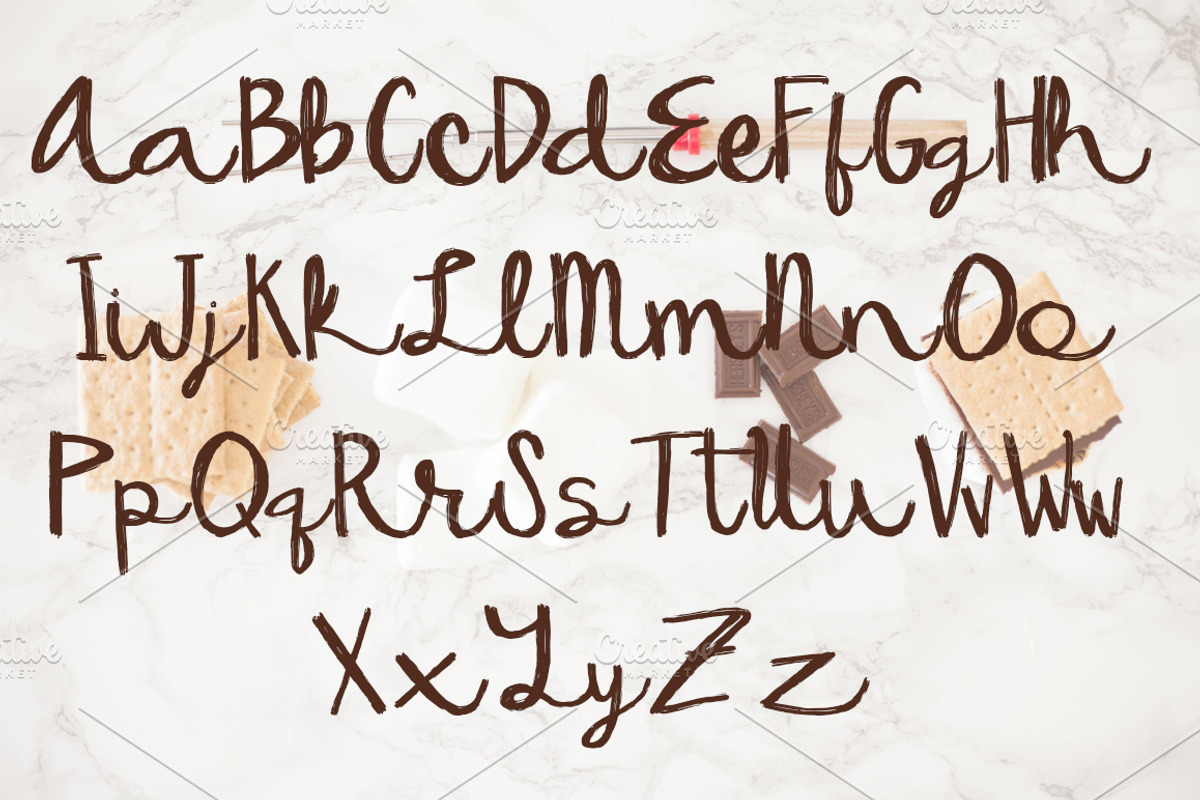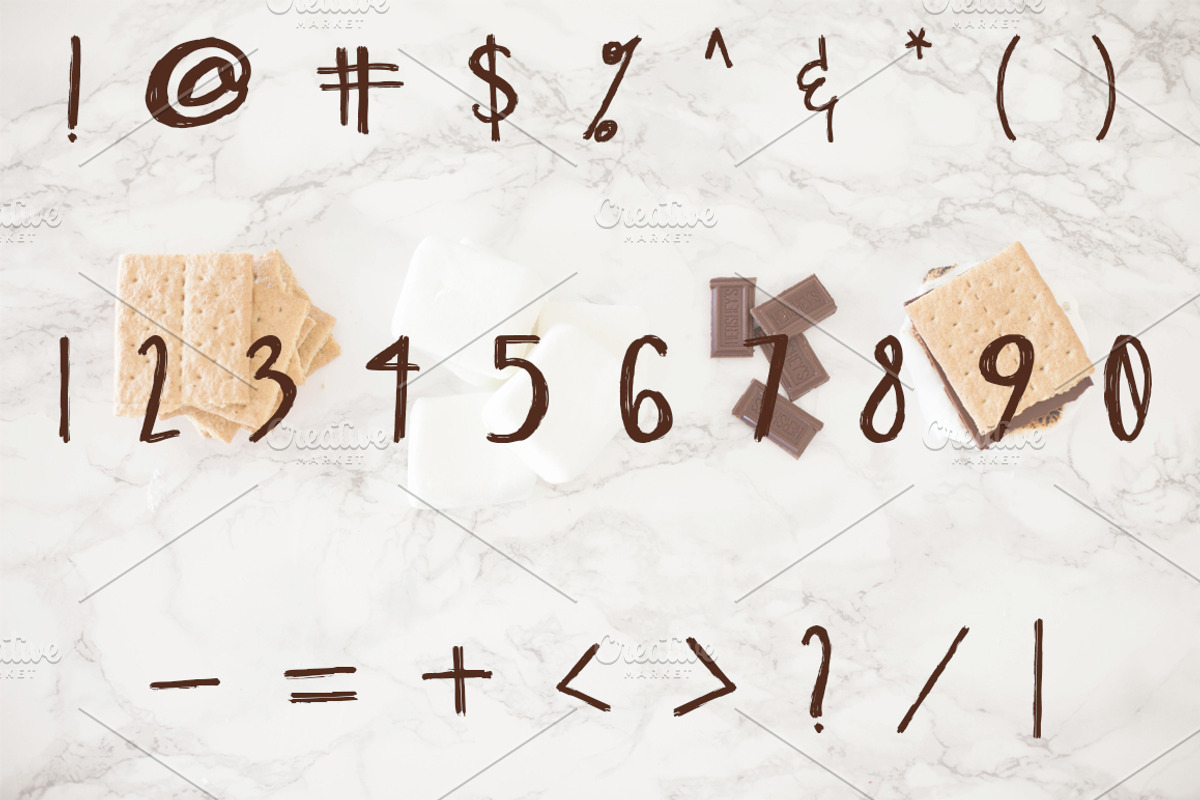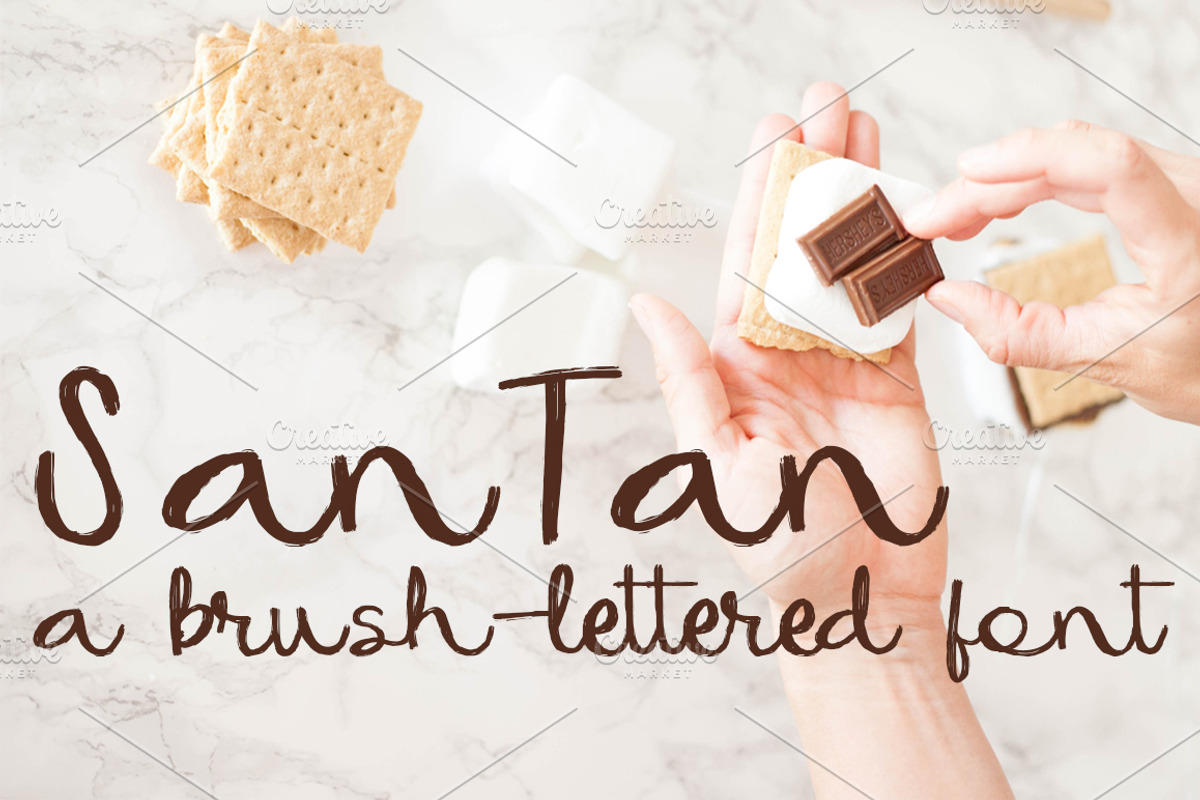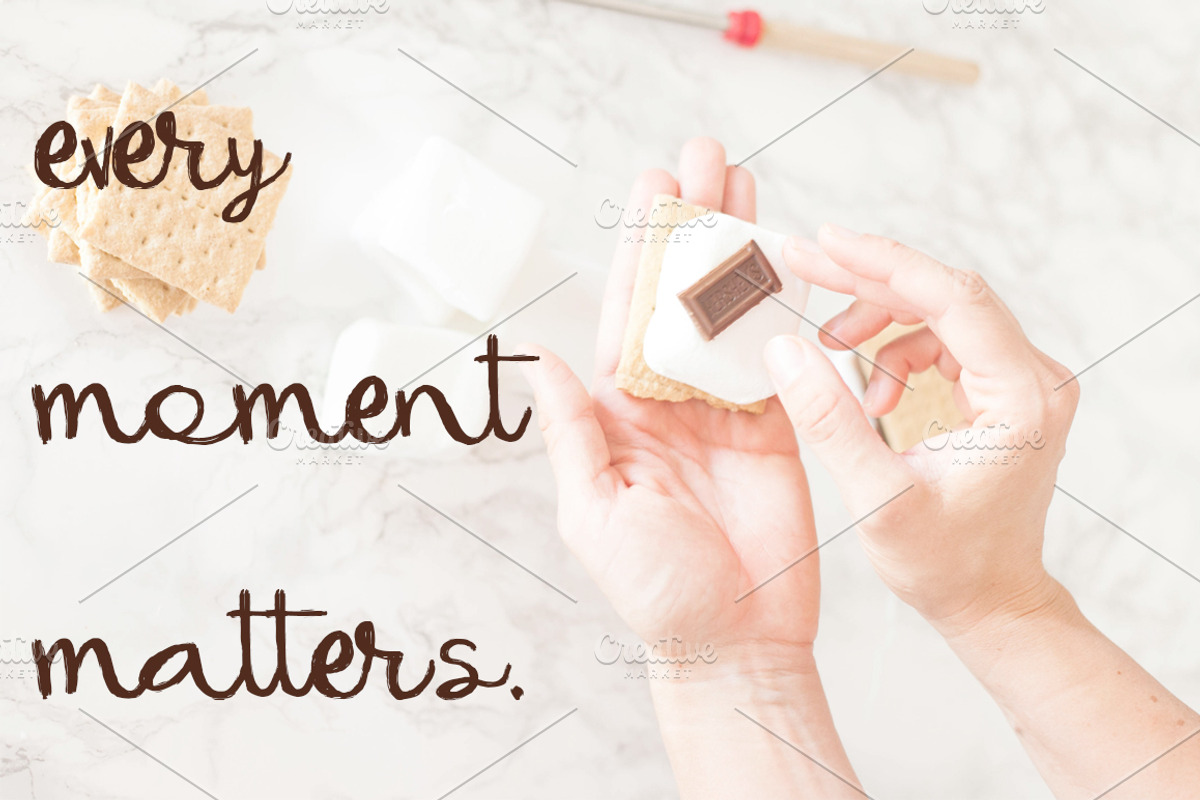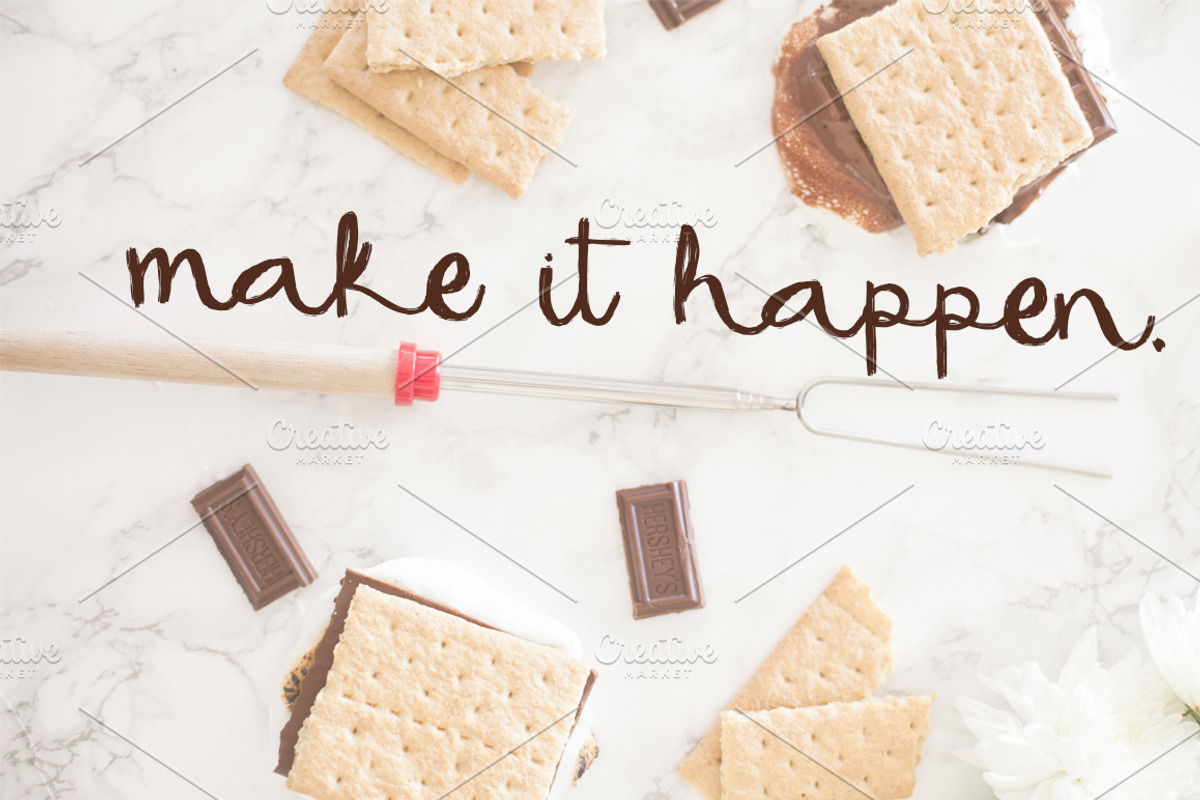
SANTAN Brush Lettered Font
SanTan is a funky brushed, hand lettered font. This quirky font is thick enough to be seen easlily and brings a hand drawn personality to any project!